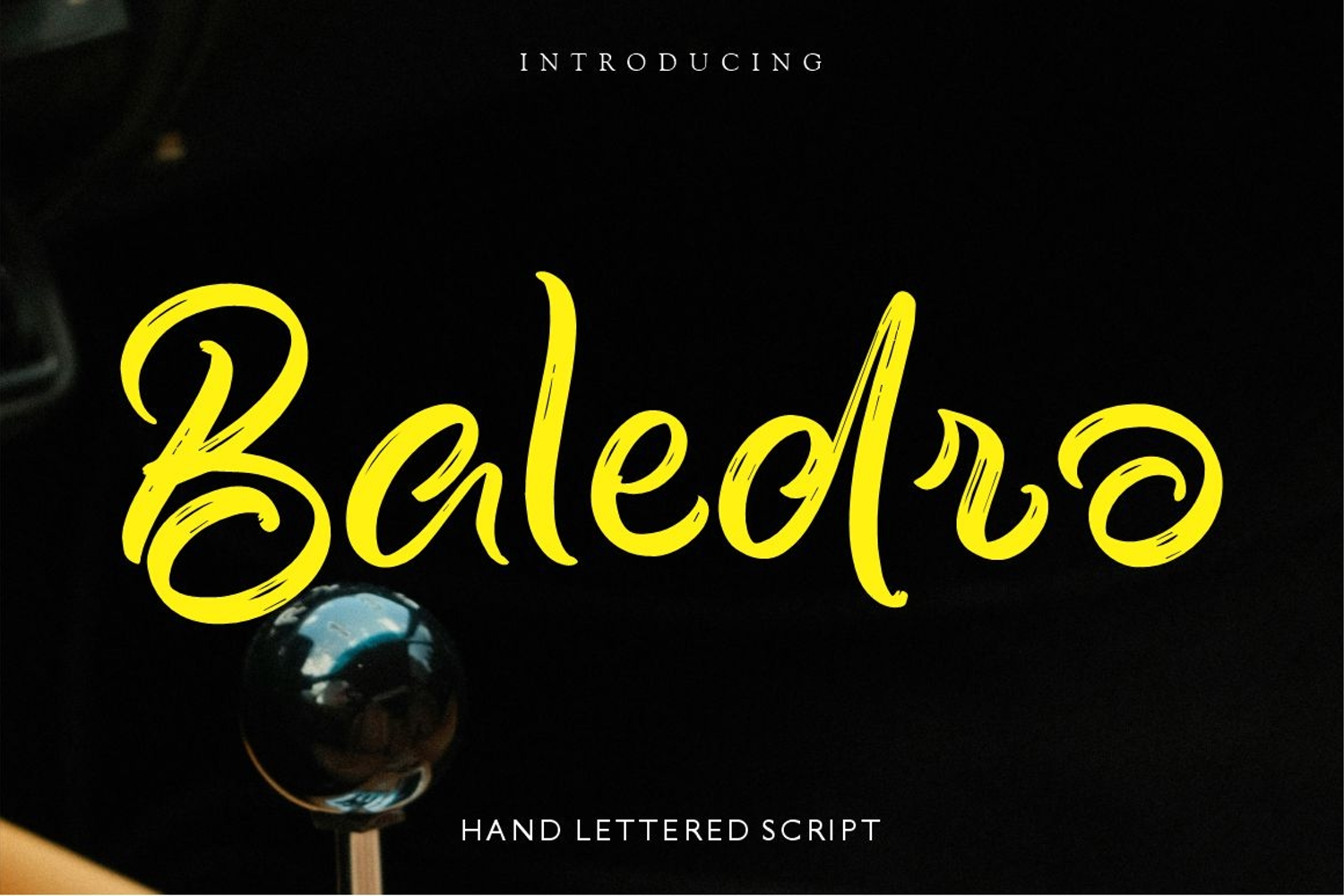
Baledro
Baledro is textured brush font, featuring a contemporary approach to design, naturally handmade and with underscores. It also has alternatives and ligatures that make your design more attractive.
Baledro includes a complete set of uppercase and lowercase letters, as well as multi-language support, numbers, punctuation.